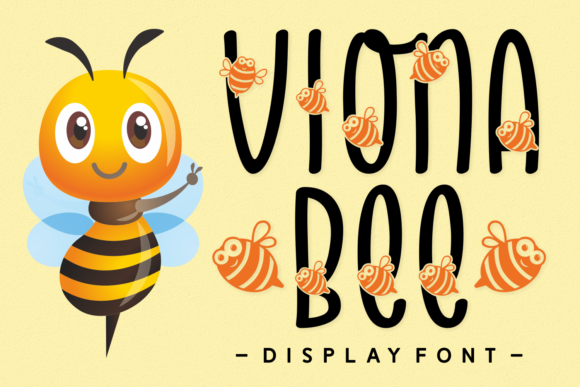
Welcome to the whimsical world of Viona Bee, a display font family buzzing with creativity and charm. This playful and cute font is designed to bring a smile to your face and captivate the hearts of your audience. With its bee-inspired theme, Viona Bee dances across your designs like a cheerful bee, leaving a trail of visual delight.
Unlike ordinary fonts, Viona Bee is not just a collection of letters; it's an art form. Each character is meticulously crafted with attention to detail, featuring adorable little bees peeking out from the lines and curves. This unique design element adds a touch of whimsy and magic to your projects, making them stand out from the crowd.
Whether you're creating beekeeping labels, product tags, packaging, logos, branding, or designing honey jar labels, Viona Bee is the perfect choice. Its versatility knows no bounds, allowing you to explore endless creative possibilities. Unleash your imagination and create designs that buzz with personality, charm, and a touch of sweetness.
So why settle for ordinary fonts when you can have Viona Bee? Dive into the world of delightful design and let this font family work its magic. Experience the joy of creating projects that captivate and engage, leaving a lasting impression on all who encounter them.